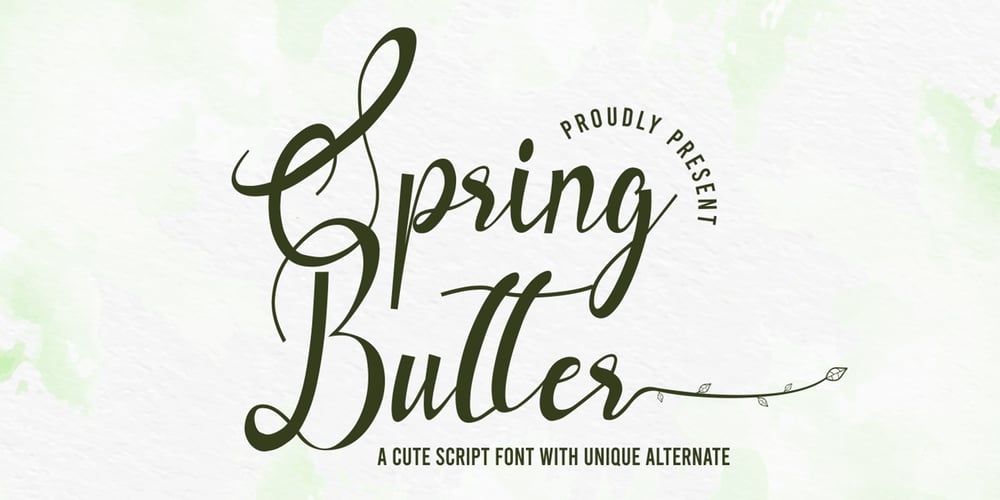
Spring Butter Font Family was designed by Sipanji and published by Sipanji21. Spring Butter contains 1 styles and family package options. Spring Butter is a modern script with leaves looks in the open type feature. This font is elegant, messy and modern.Spring Butter perfect for wedding event, anniversary, birthday, greeting cards, logotype, branding, wedding invite and card, elegant logo, poster, packaging, stationery, website, and any other projects requiring a handwritten and luxurious touch. Come with open type feature with a lot of alternates and some ligatures also its help you to make great lettering.